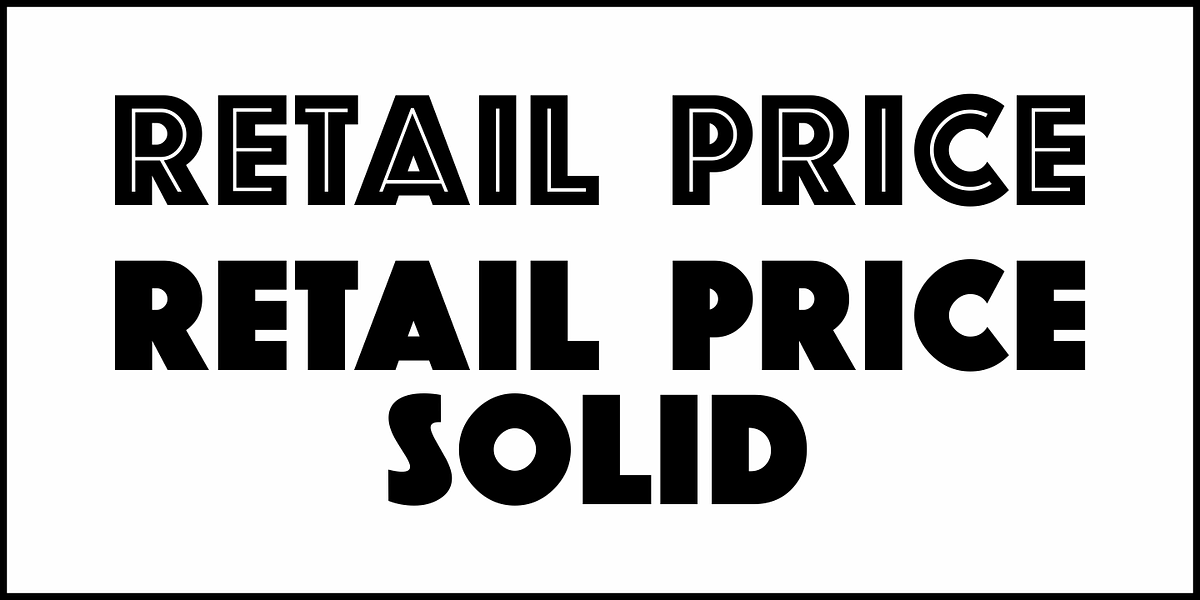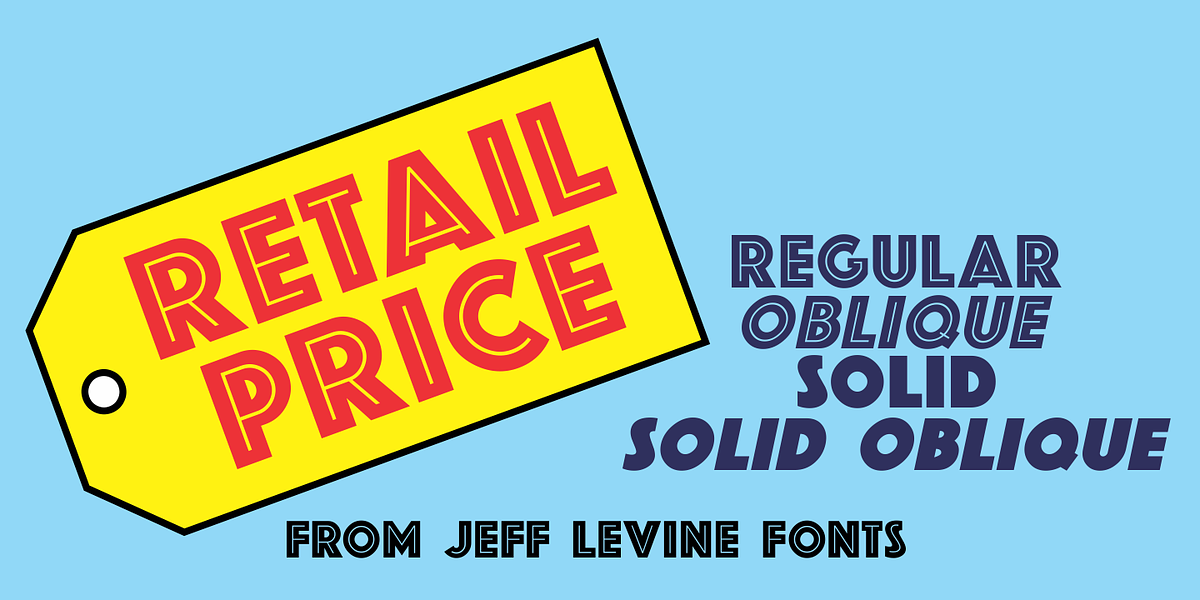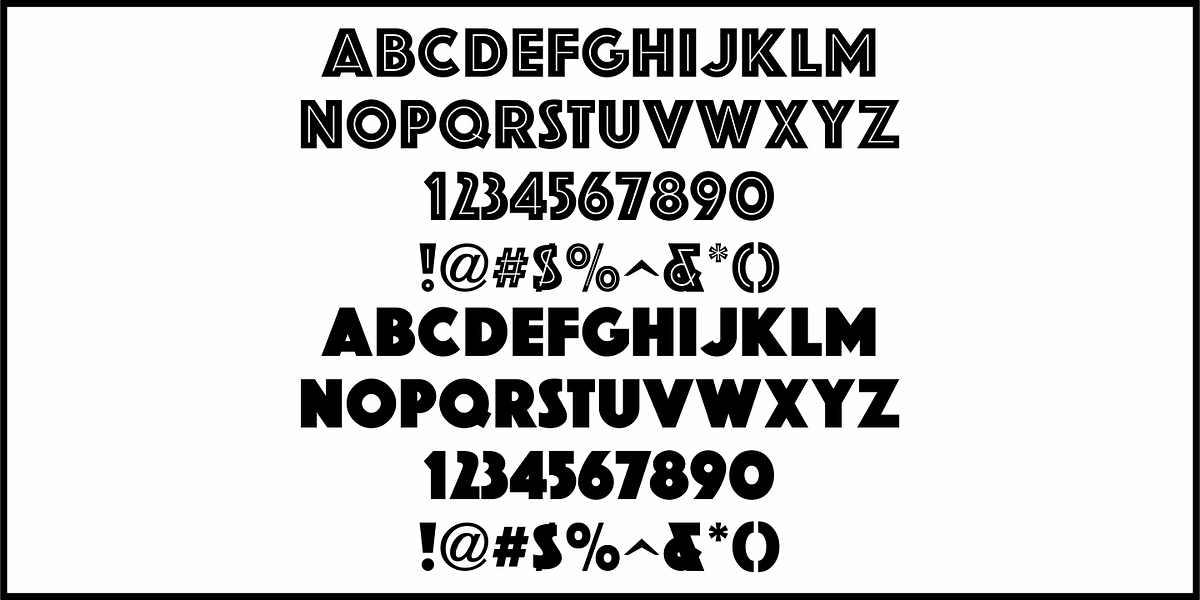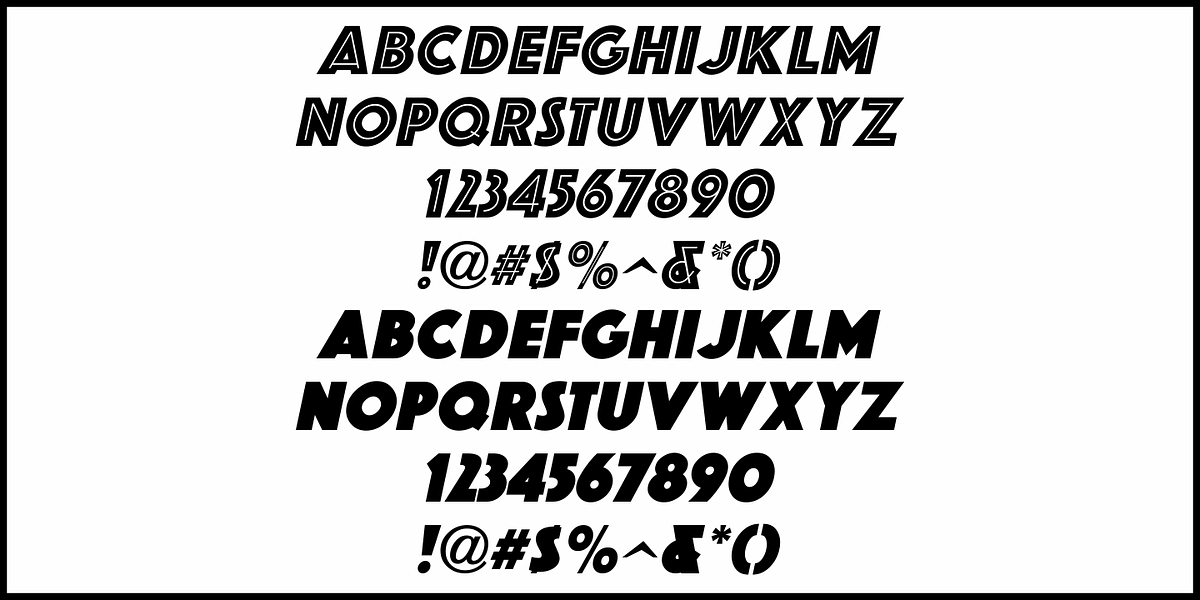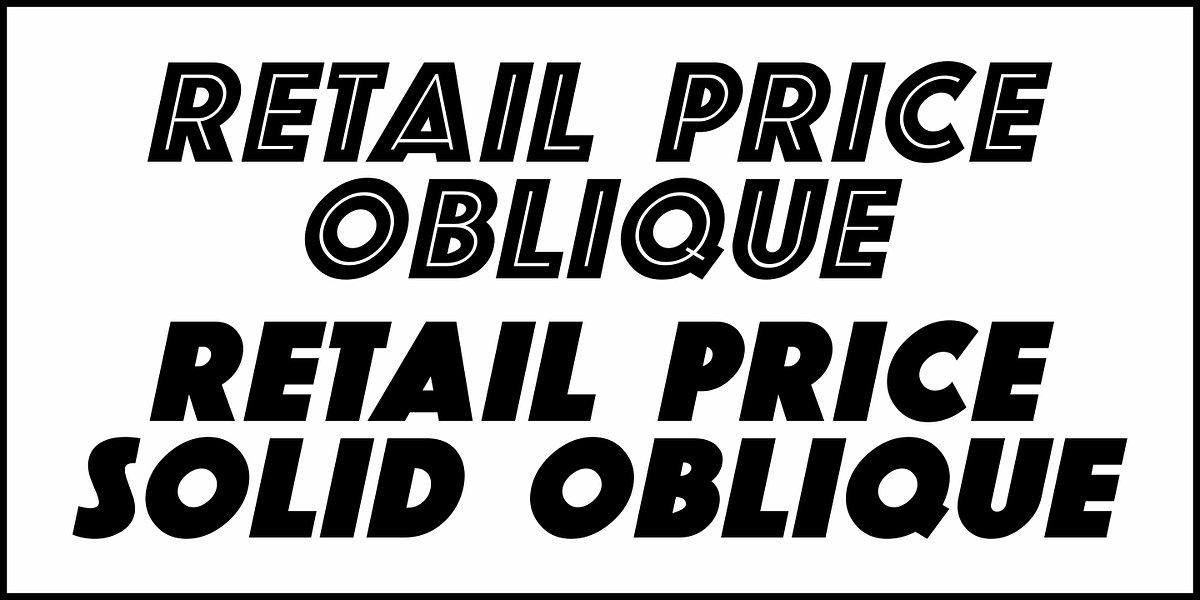
Retail Price JNL
Redrawn from lettering found on a British publication circa the 1930s, Retail Price JNL is an extra bold display inline sans that’s great for catchy headlines, price cards, banners or any other attention-getters.
Retail Price JNL is offered in regular, oblique, solid and solid oblique versions.